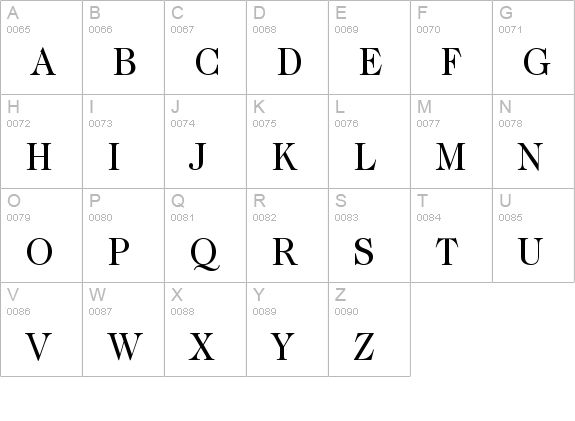
CaslonNo224EF-Book is a comfortable, highly readable variant in the CaslonNo224EF typeface family \xE2\x80\x94 well suited to long-form body text, articles, and editorial content.
CaslonNo224EF-Book is a classic serif font that exudes elegance and sophistication. With its refined design and timeless appeal, this font is perfect for a wide range of projects, from print materials to digital designs. The clean lines and balanced proportions of CaslonNo224EF-Book make it easy to read and aesthetically pleasing. Best of all, this exquisite font is available for free download at FontsMarket.com. Whether you're a designer looking to enhance your creations or a business owner seeking a polished look for your branding, CaslonNo224EF-Book is a versatile choice that will surely elevate your projects. Don't miss out on this opportunity to access this high-quality font at no cost - download CaslonNo224EF-Book today and add a touch of sophistication to your work.